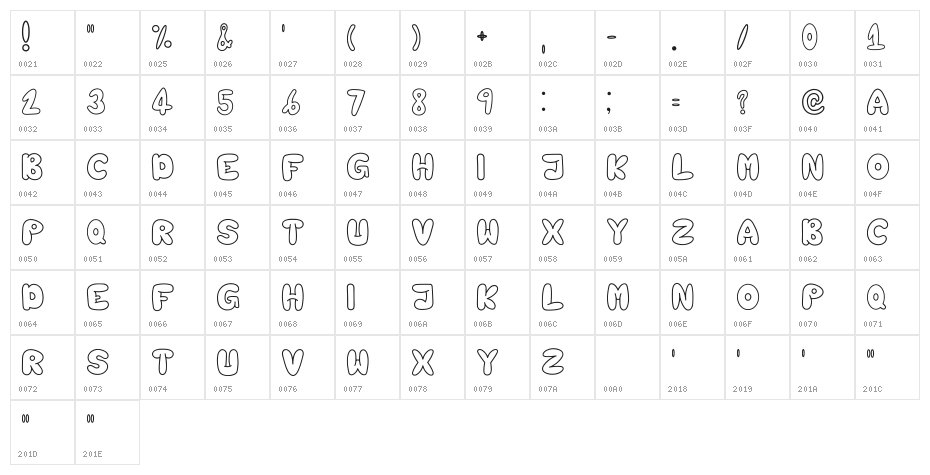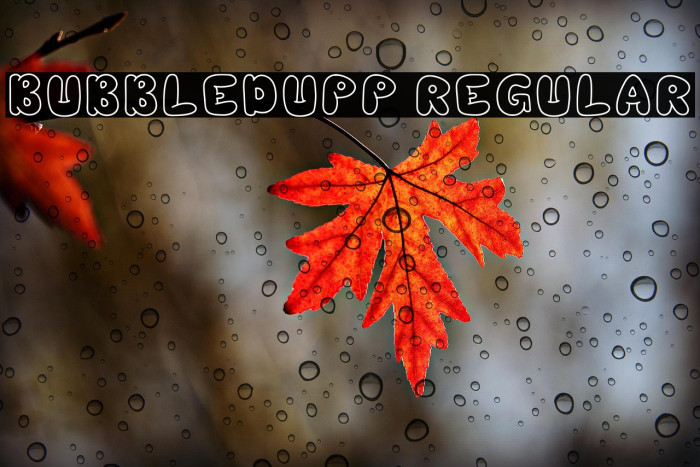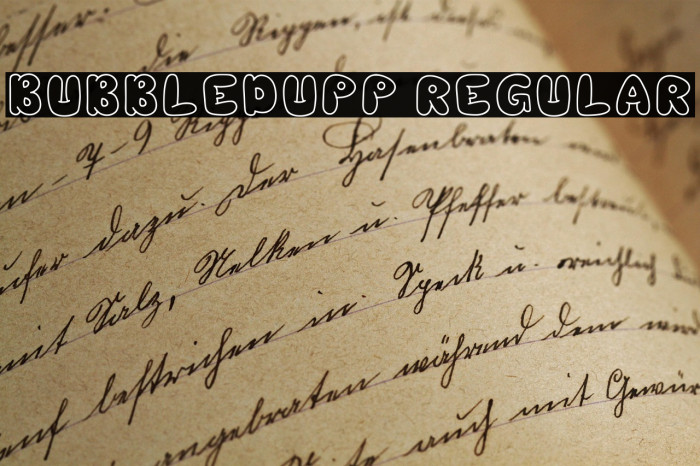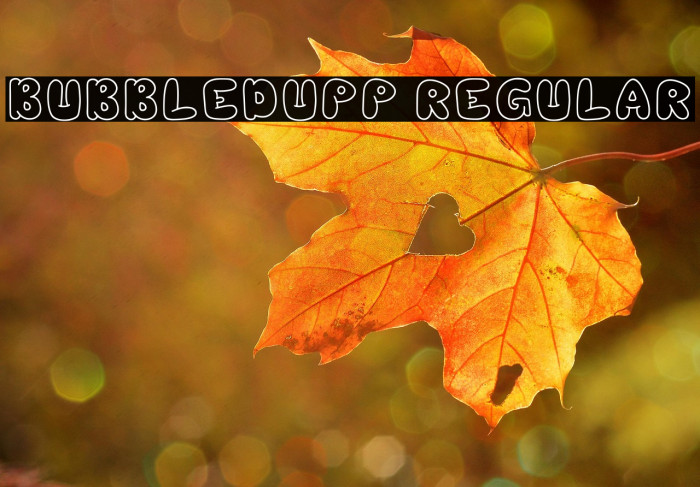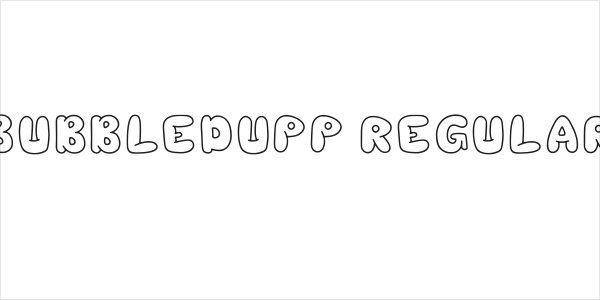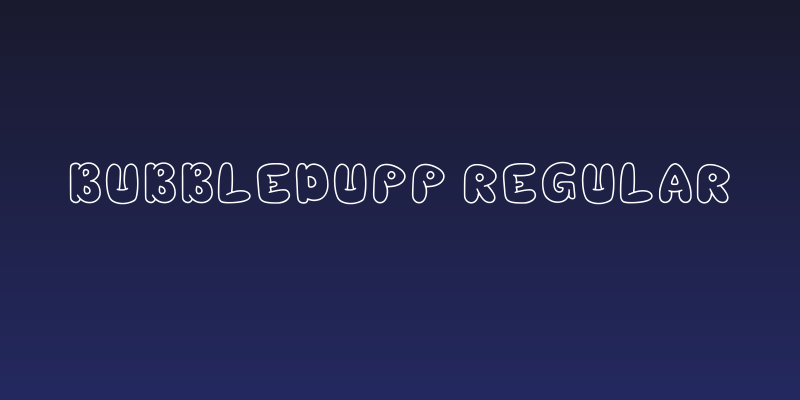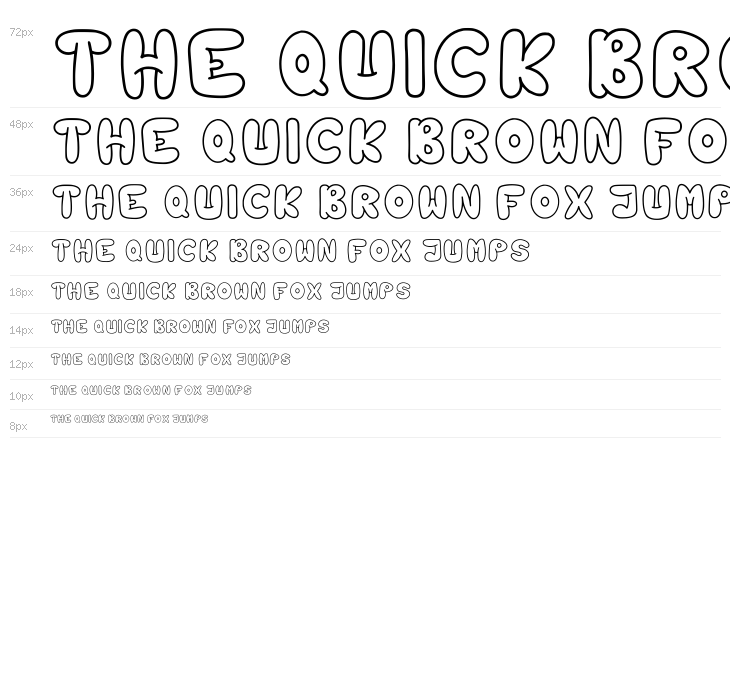
Bubbledupp Regular Font
Bubbledupp Regular Description
This playful and whimsical font features rounded, bubble-like characters that convey a sense of fun and lightheartedness. The letters are outlined, giving them a hollow appearance that adds to their playful nature. Each character is consistently rounded, with smooth curves and a uniform thickness throughout. The font maintains a casual and approachable feel, making it ideal for projects that aim to capture a youthful or informal tone. The numbers and special characters follow the same bubbly style, ensuring a cohesive look across all text elements.
| Proposed Projects | Ideal for children's books, party invitations, playful branding, and casual social media graphics. |